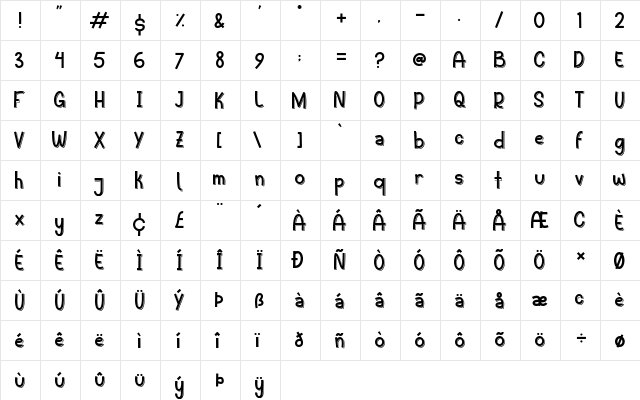
Dinoko Layered
| Foundry | Helotype Co. |
| Designer | Heloyud |
Design Context for Dinoko Typeface
Dinoko is a composed and adaptable typeface that performs quietly and consistently across a wide range of design contexts.